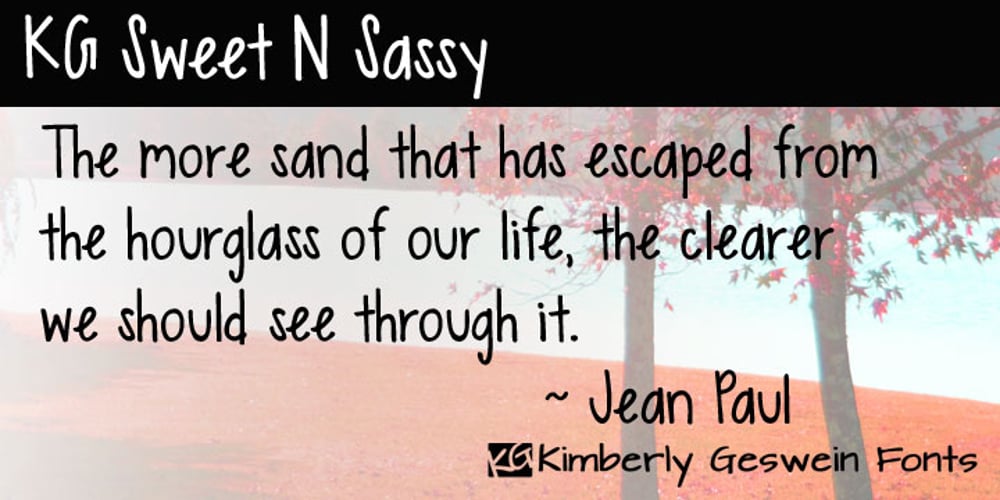
KG Sweet N Sassy Font Family was designed by Kimberly Geswein and published by Kimberly Geswein. KG Sweet N Sassy contains 1 styles and family package options. This cute, fun handwriting font is fresh and youthful. It has just enough quirkiness to be sassy but is still completely legible.